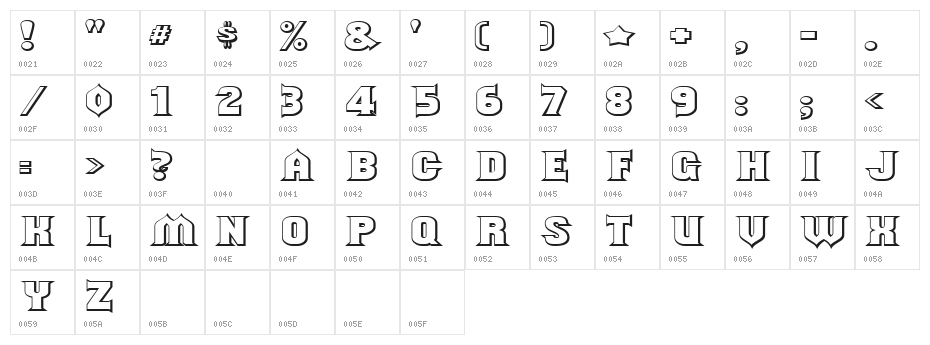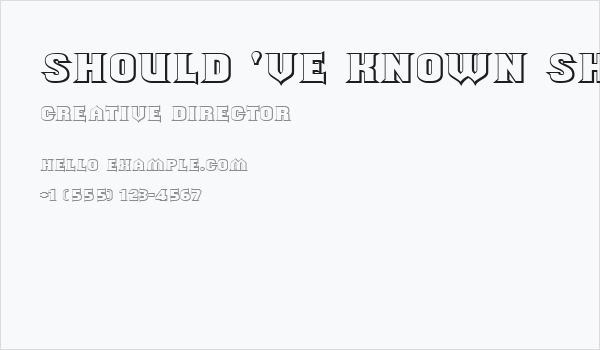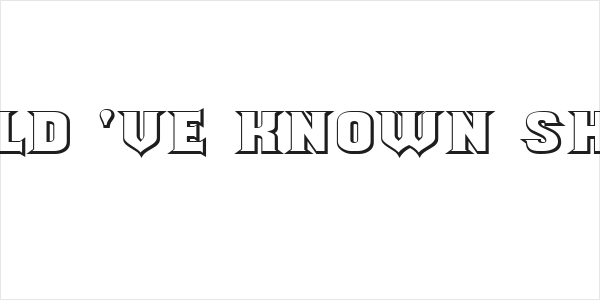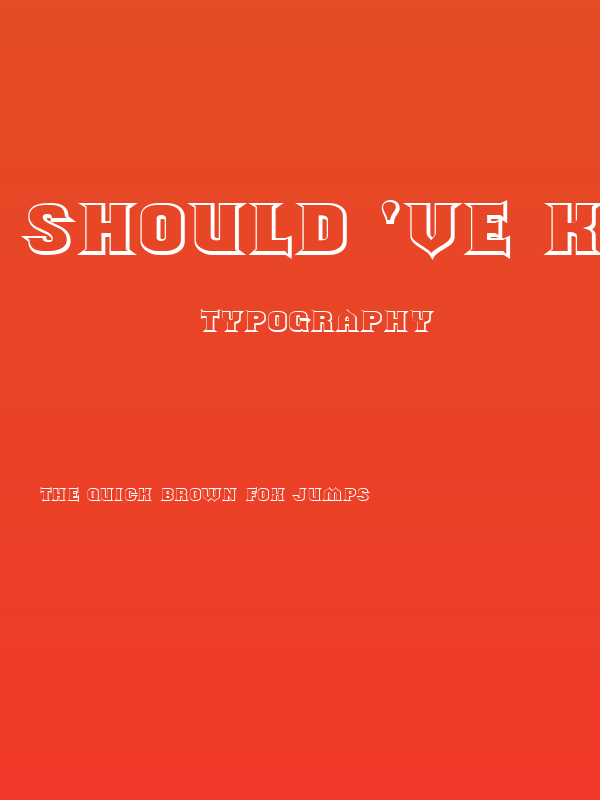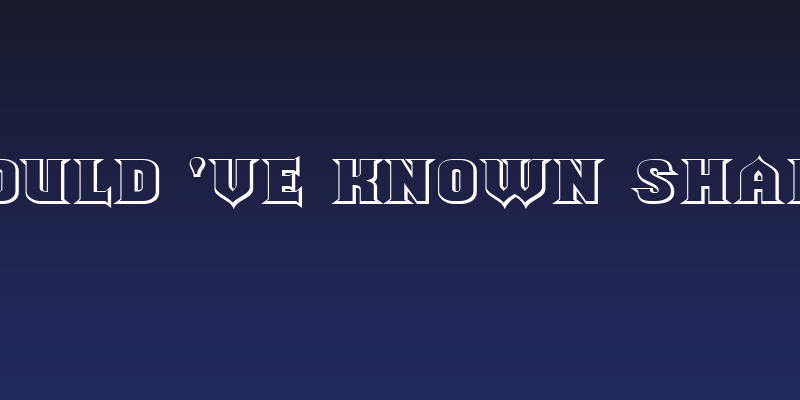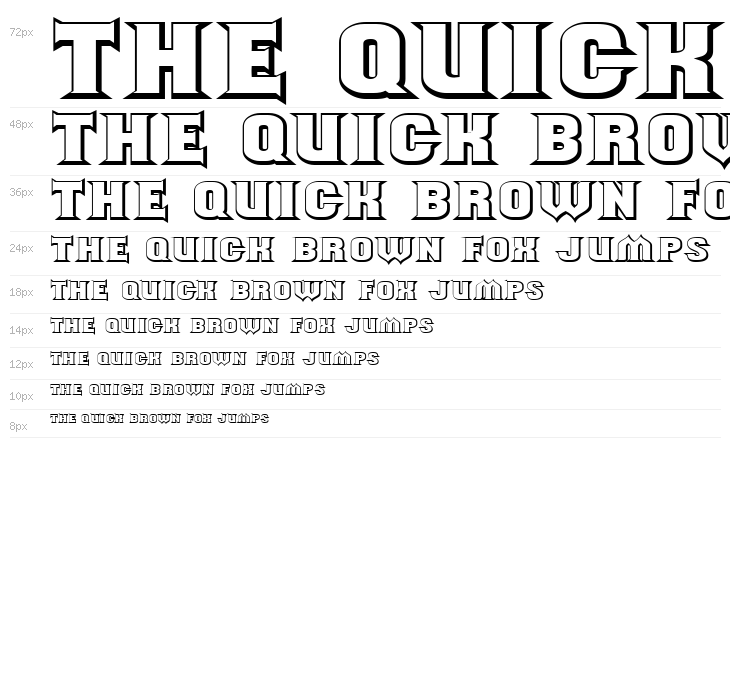
Should've Known Shaded Font
Should've Known Shaded Description
This font features a bold and striking design with a three-dimensional shaded effect that gives it a unique and eye-catching appearance. The characters are outlined with a thick black border, enhancing their visibility and impact. The letterforms are angular and geometric, with sharp edges and pointed serifs that add a sense of strength and stability. The shading within each character creates a sense of depth, making the text appear as if it is popping off the page. This font is well-suited for use in designs that require a bold statement, such as posters, headlines, and logos. Its distinctive style makes it ideal for projects that aim to capture attention and convey a sense of power and confidence.
| Proposed Projects | Ideal for posters, headlines, logos, and any design requiring a bold statement. |